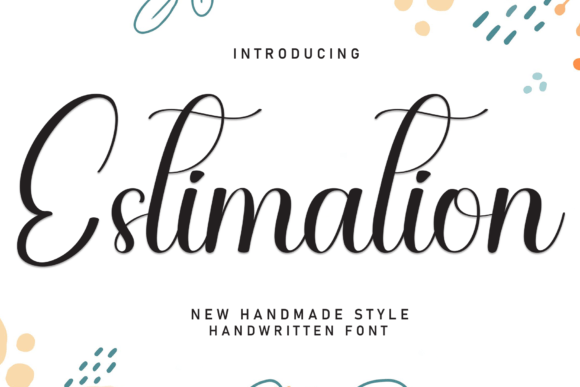
Unleash your creativity and add a dash of enchantment to your designs with Estimation Font, a captivating script font family that embodies elegance and uniqueness. Step into a world of visual storytelling, where your words dance across the page with an irresistible charm that captivates and enthralls.
Estimation Font is the perfect choice for magazine design, adding a touch of sophistication and personality to your layouts. Its graceful curves and playful strokes bring a sense of whimsy and delight, inviting readers to delve deeper into your content. With Estimation Font, your magazines will stand out from the crowd, leaving a lasting impression on your audience.
But Estimation Font is not just limited to magazines. Its versatility shines in a myriad of applications, from wedding invitations and cards to posters and branding materials. Its ability to evoke emotions and create a connection with your audience makes it an ideal choice for any design project that seeks to capture the imagination.
When you choose Estimation Font, you choose a font that speaks to the heart. Its charming and approachable nature creates a warm and inviting atmosphere, making it perfect for personal branding and social media posts. Share your thoughts and ideas with the world in a way that resonates with your followers, leaving them captivated and eager for more.
With Estimation Font, the possibilities are endless. Its versatility and emotional appeal make it a must-have for designers of all levels, whether you're a seasoned professional or just starting out. Embrace the power of this remarkable font and watch your designs transform into captivating works of art that leave a lasting impression. Add Estimation Font to your collection today and unlock a world of design magic!